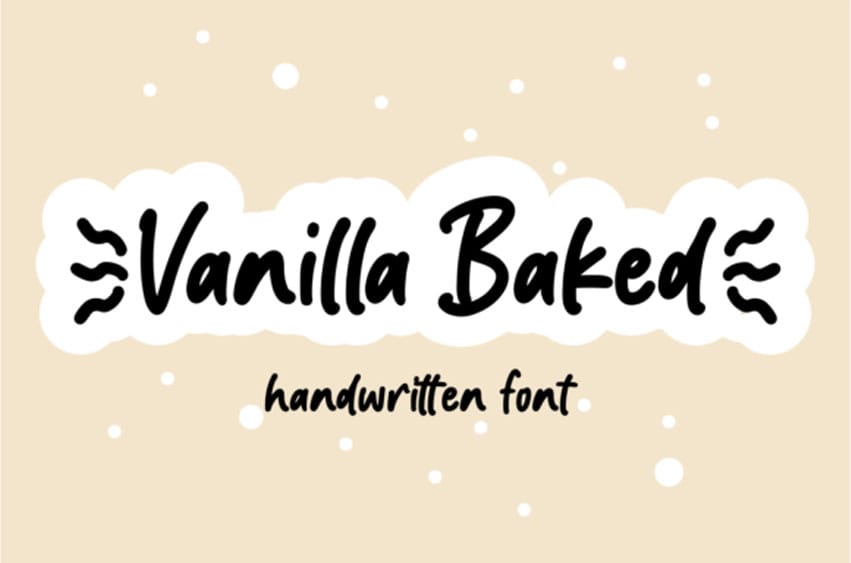
Vanilla Baked Font is a sweet and casual handwritten font.
Fall in love with its incredibly versatile style and use it to create gorgeous wedding invitations, beautiful stationary art, eye-catching social media posts, and much more!